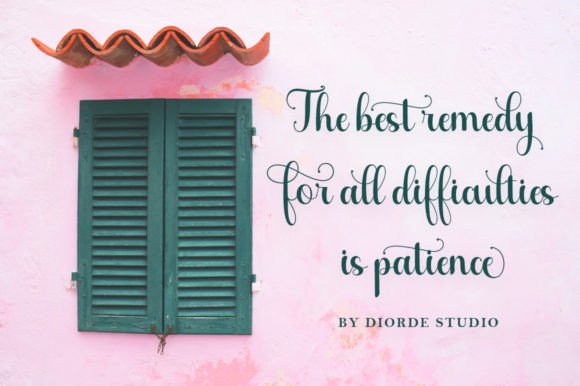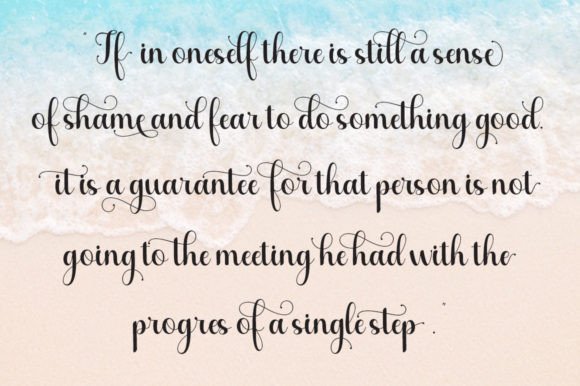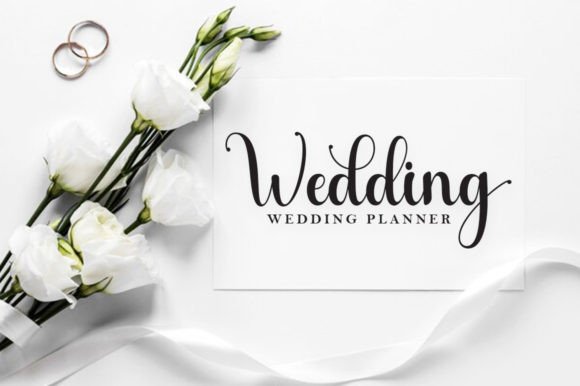
Introduction to Kaila Giovani Font
Kaila Giovani is a chic, refined script font that emanates sophistication and elegance.
It’s stylish alternates and ligatures make this incredibly feature rich font the perfect match for any project This font is PUA encoded which means you can access all glyphs and swashes with ease.
Key Features of Kaila Giovani Font
Why Choose Kaila Giovani Font?
Kaila Giovani Font offers exceptional quality and versatility, making it a valuable addition to your design toolkit. Whether you’re creating for personal projects or commercial use, Kaila Giovani Font delivers professional results.